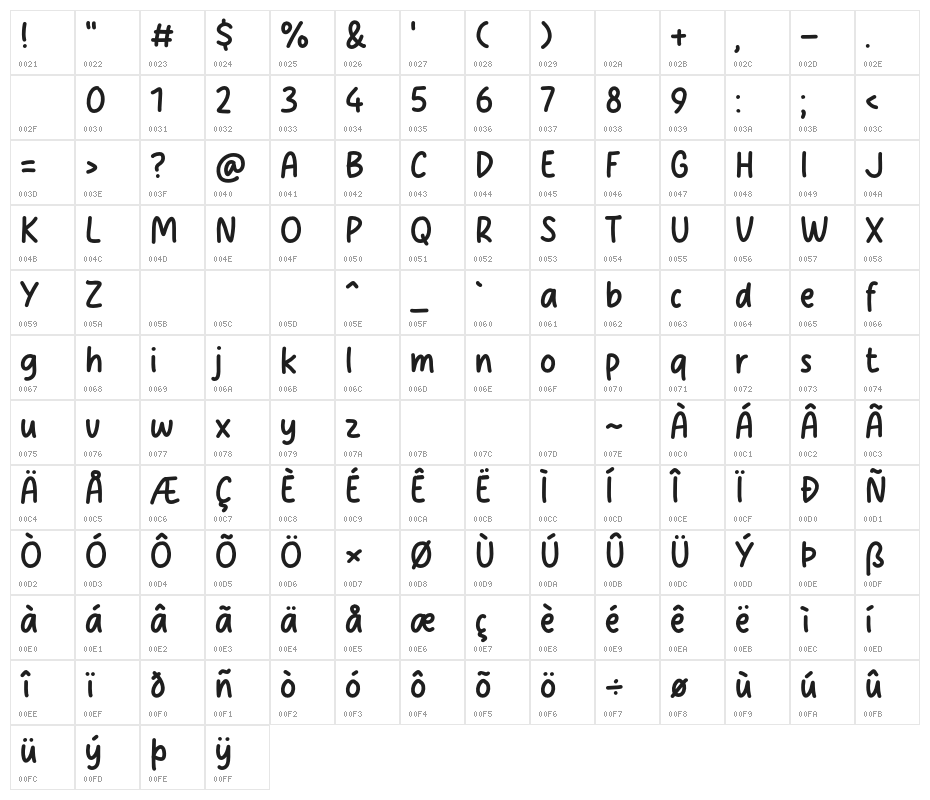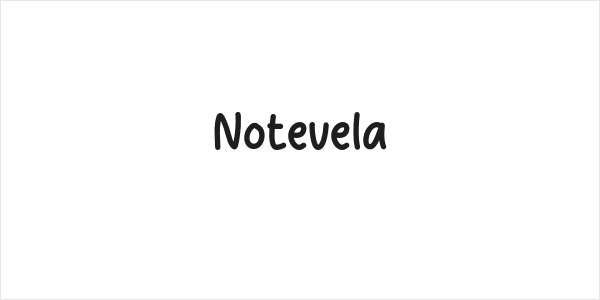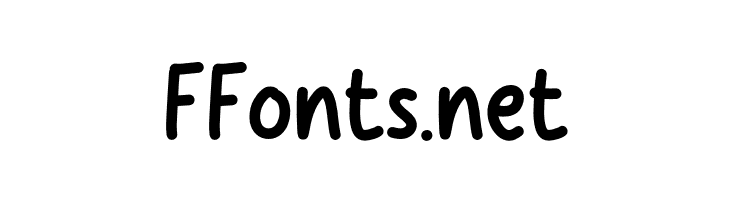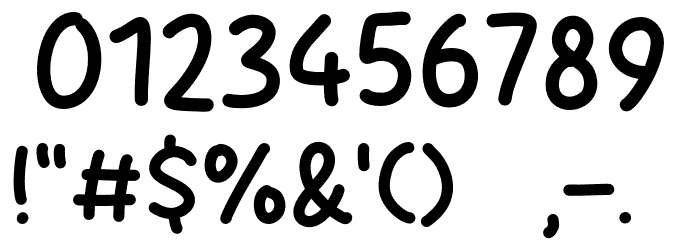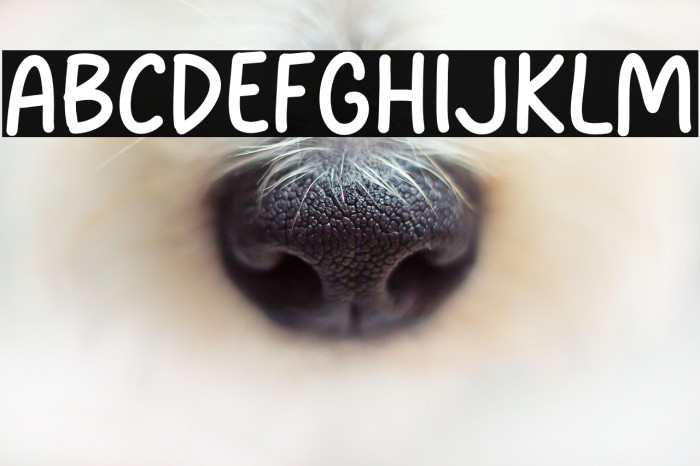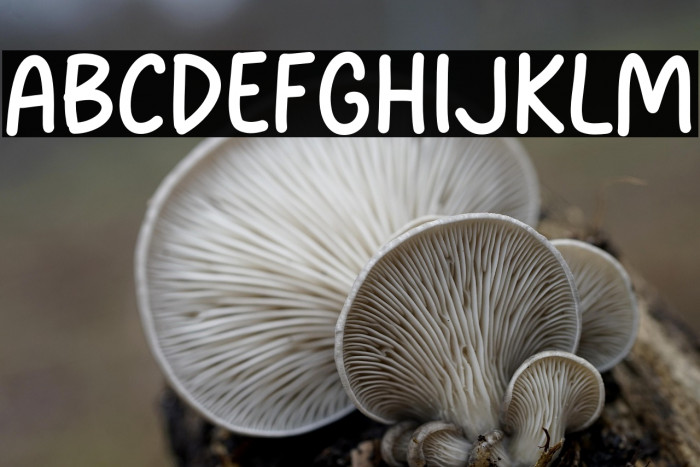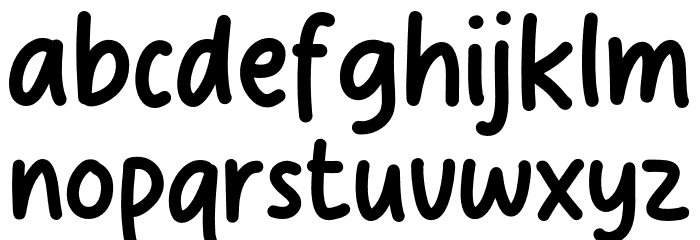
Notevela Font
Notevela Description
A playful, rounded, handwritten style font with casual and friendly appearance.
| Overall Style | Casual, Friendly, Playful |
| Use Case | Headlines, Body text, Logos, Invitations |